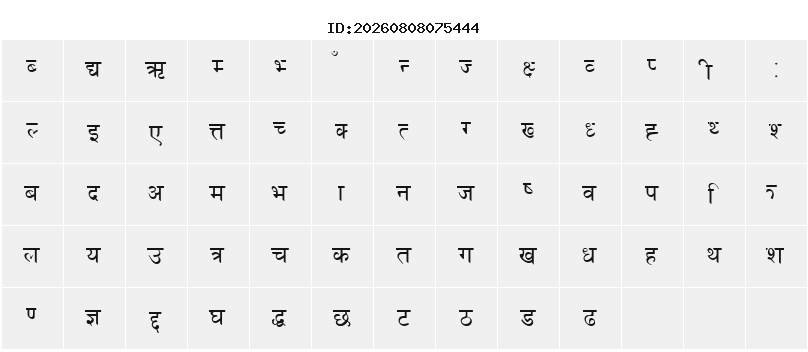
Preeti Preview
• Font Name: Preeti
• Full Font Name: Preeti
• Version: 1.0 Wed Aug 04 04:08:28 1993
• PostScript Name: Preeti
• Character Count: 139
About Preeti.ttf
Preeti.ttf is a modern, elegant sans-serif font designed for ultimate readability and visual harmony. Perfect for branding, headlines, web design, and print materials.